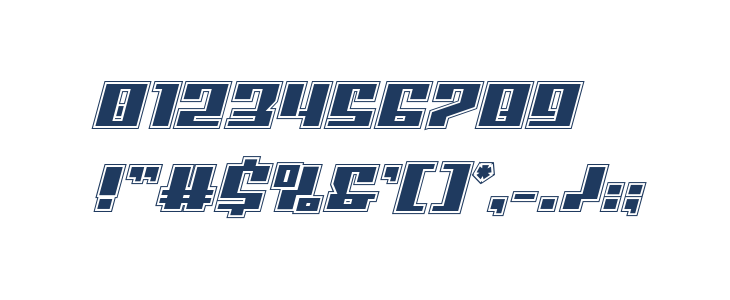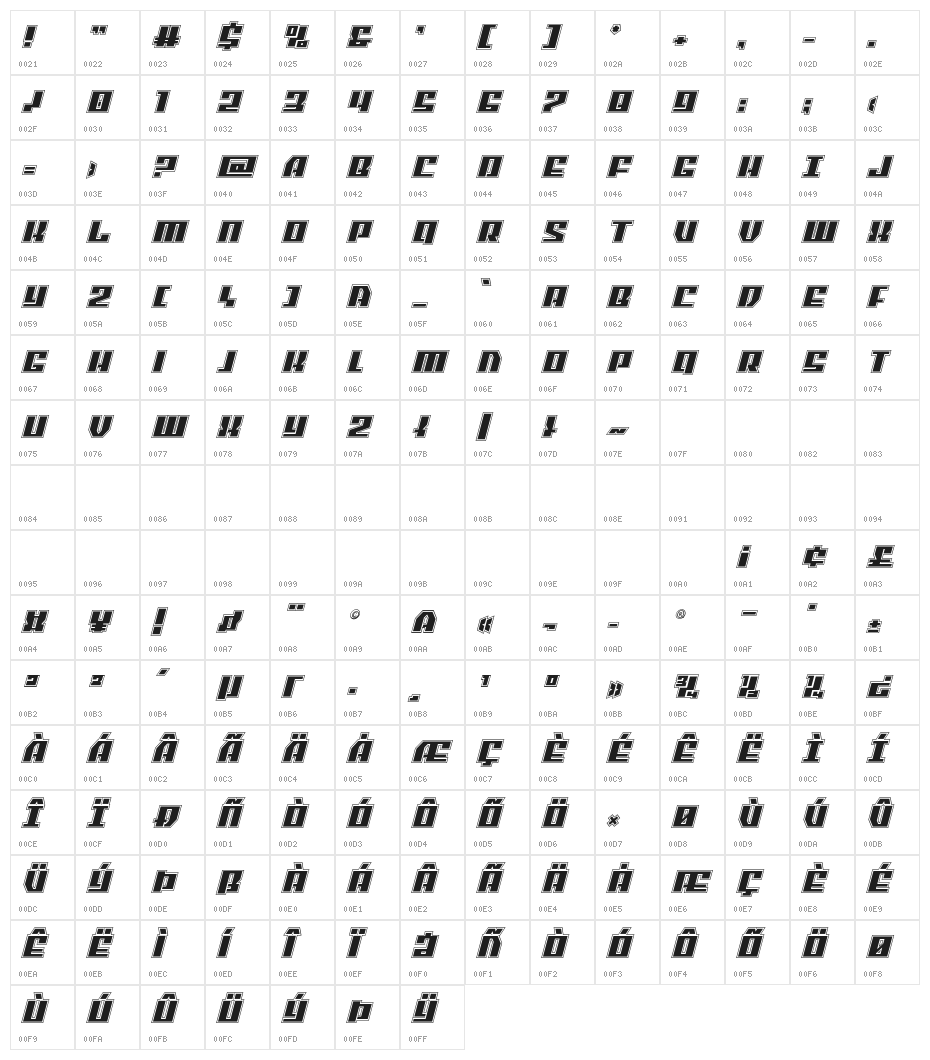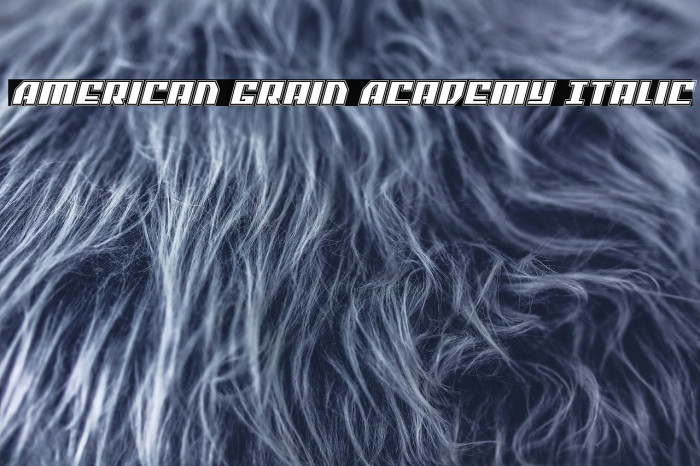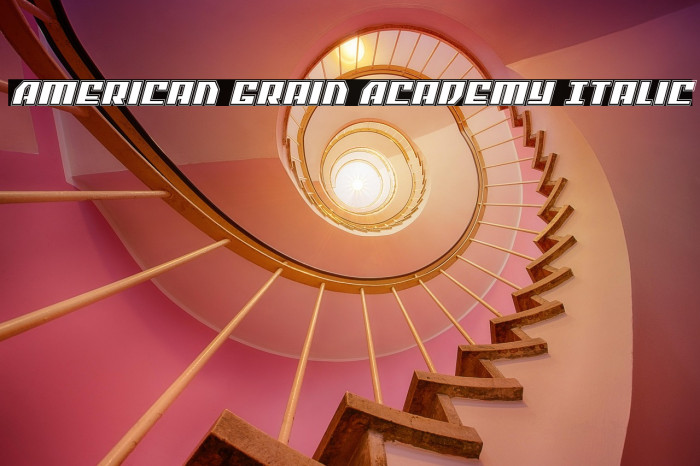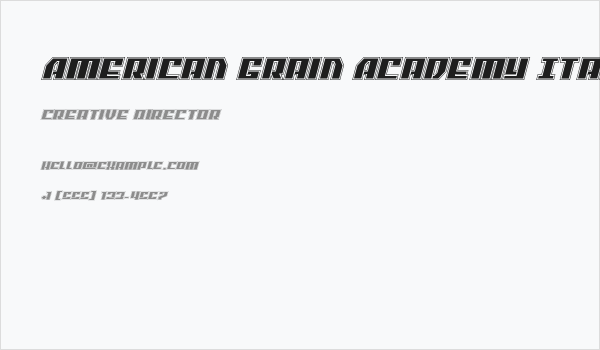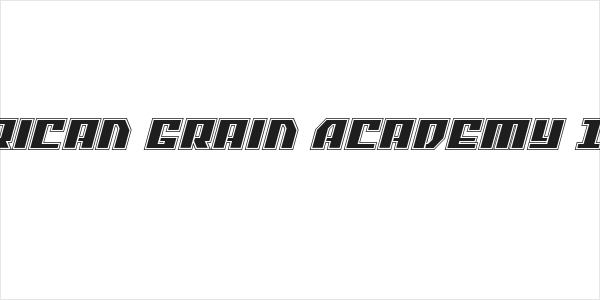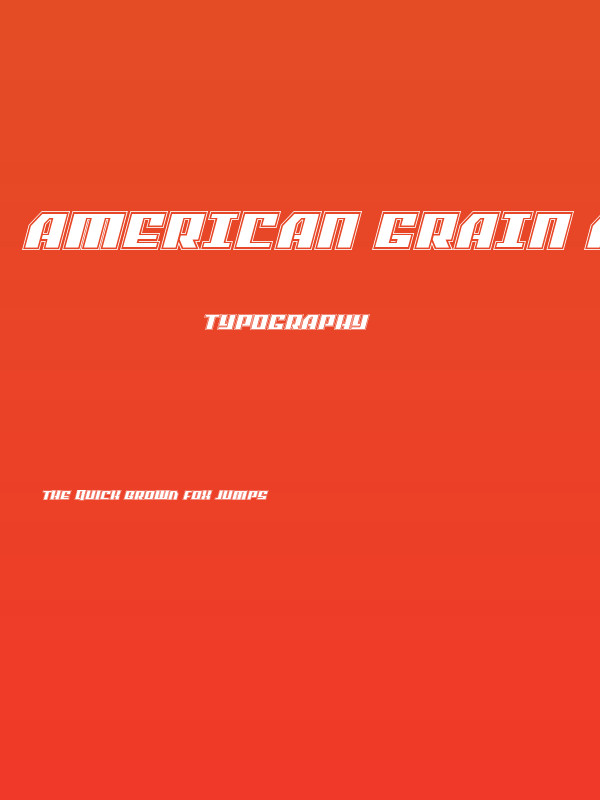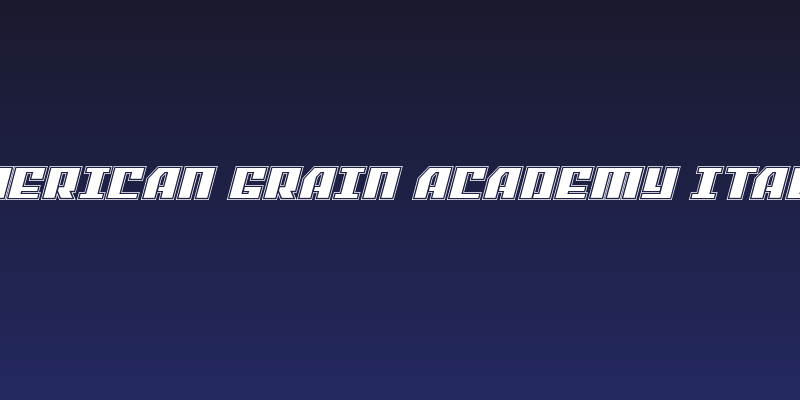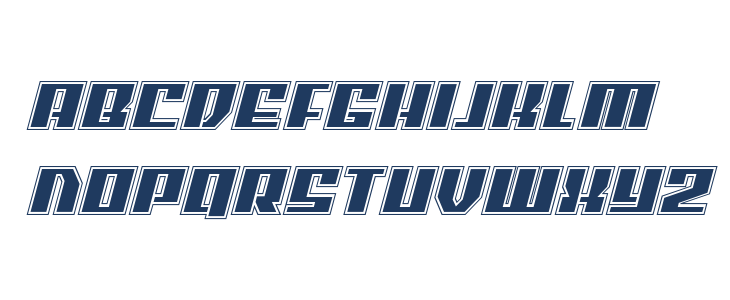
American Grain Academy Italic Font
American Grain Academy Italic Description
This font features a bold, italicized style with a strong geometric influence. The characters are outlined, creating a striking contrast between the solid inner portions and the outer edges. The angular design gives it a dynamic and energetic appearance, making it suitable for attention-grabbing headlines or logos. The uppercase and lowercase letters maintain a consistent style, with sharp edges and a slight slant that enhances the italic effect. Numbers and special characters follow the same design principles, ensuring uniformity across all glyphs. The overall look is modern and assertive, perfect for projects that require a bold statement.
| Proposed Projects | Ideal for sports branding, dynamic posters, modern logos, and eye-catching headlines. |